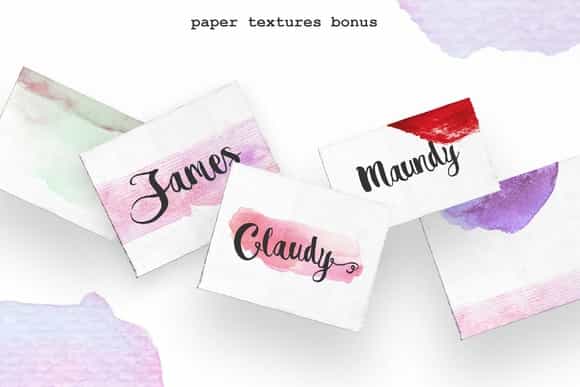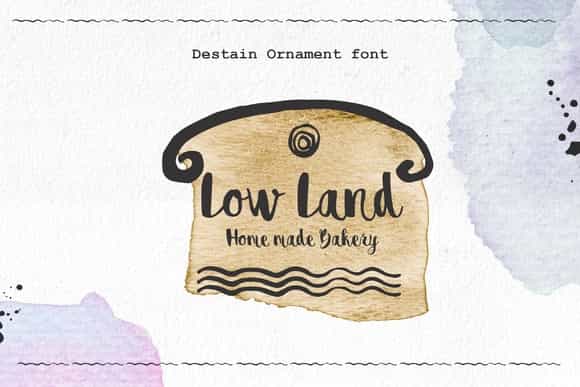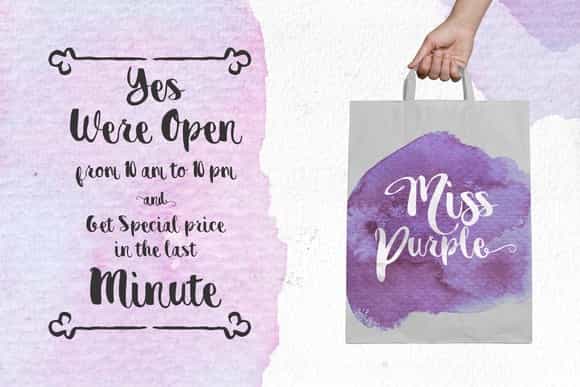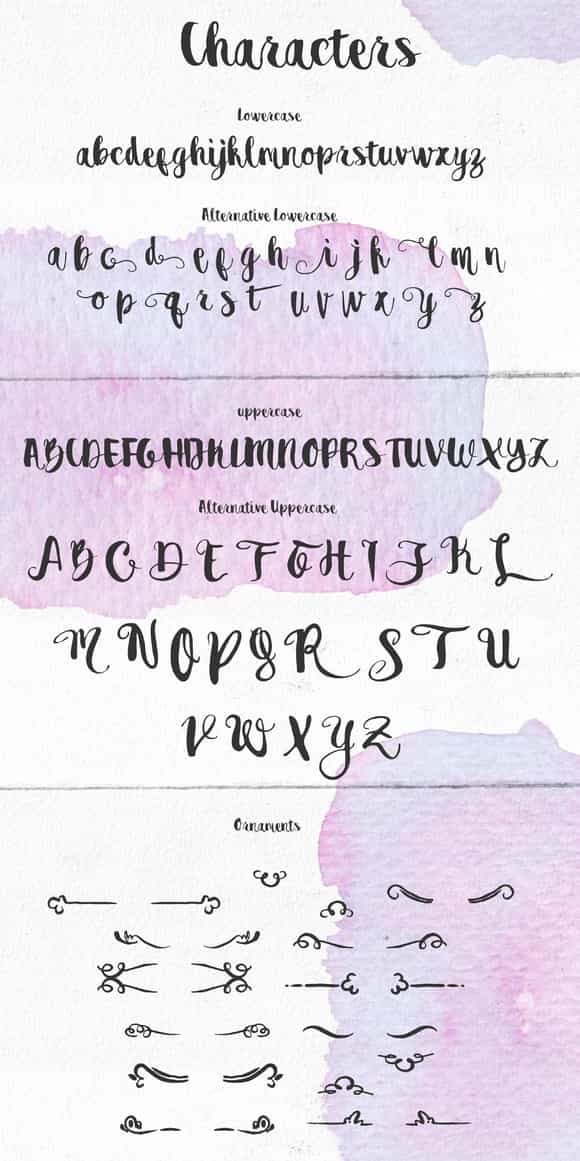
Destain Script font is a type directly drawn like it was by a brush pen, even though the creation process is different. You can get Destain and use it in any designs you want in any project that you have and needs a little amount of style.